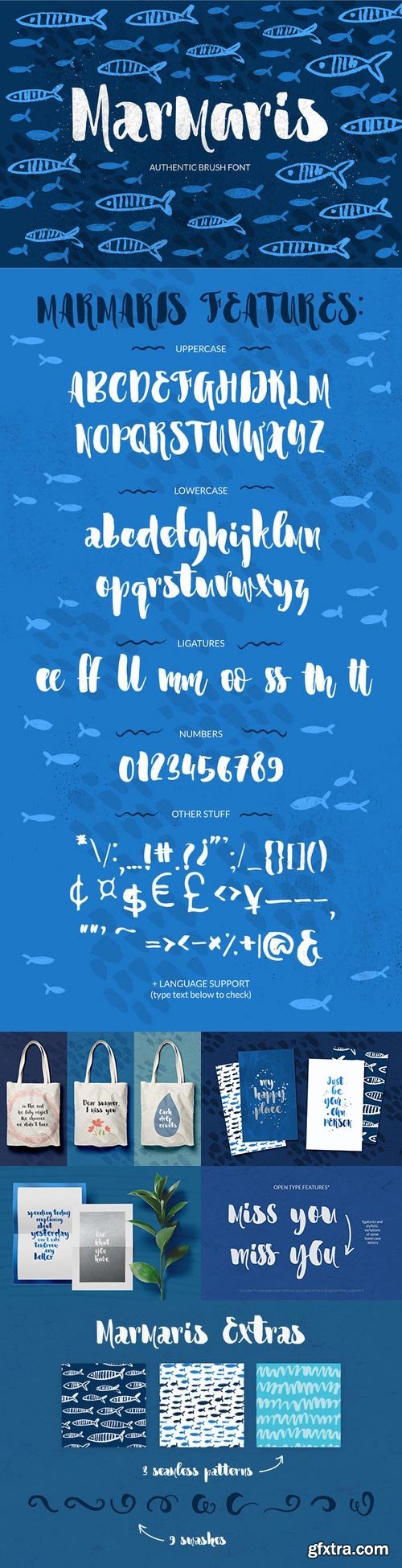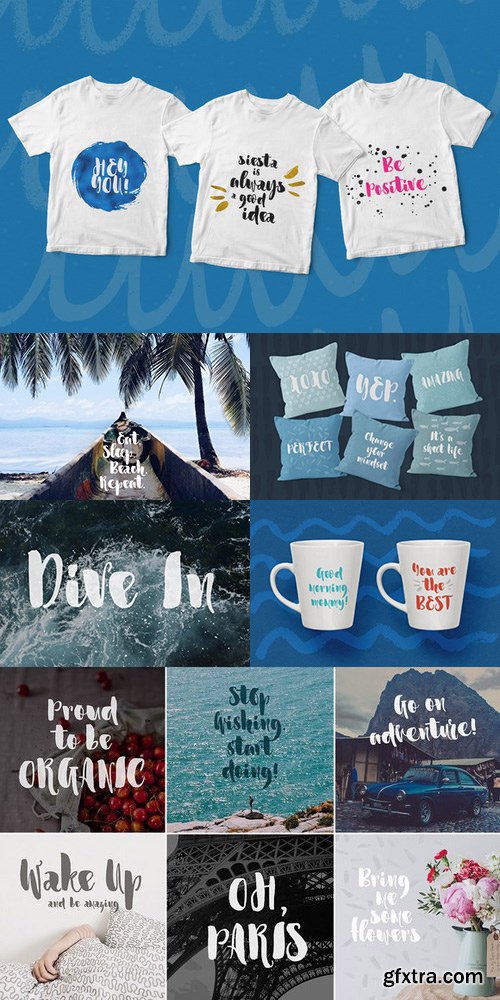
by Favete Art in Fonts Script Marmaris is a multi purpose brush font with bold lines and organic texture. You can use uppercase letters to create organic & bold designs, and lowercase portion is great for more gentle approach. Marmaris is great for branding, logo design, invitations and posters. Marmaris has open type features which include ligatures and stylistic variations of some lowercase letters. Please note that in order to enjoy open type features, you need to have a software that supports it. You can access open type features by turning on ‘stylistic alternates' button on in Photoshop's Character panel, or via any software with a glyphs panel (Adobe Illustrator, Photoshop CC, Inkscape). Extended language support include most of european languages, you can check if Marmaris has characters that you need (and if it doesn’t, please do not hesitate to contact me, I’ll try to add those glyphs). Extended licence is included so you can use it for any personal or commercial projects like mugs, t-shirts or posters that you want to sell. But that’s not all! You will also get some cool extras :-)